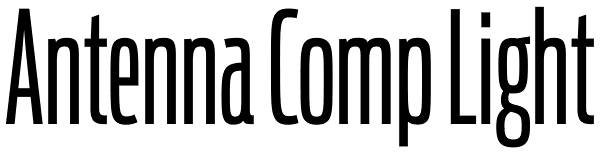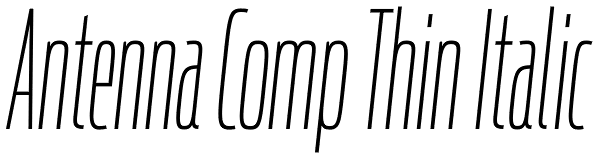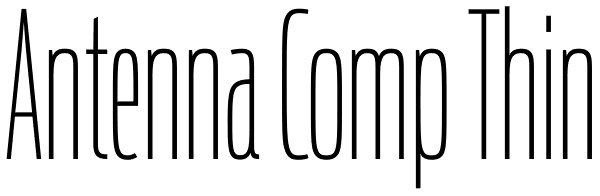
Antenna
The calm and deliberation of Antenna offers further development to the excitement and mobility that we have come to expect from the hand of Cyrus Highsmith. Beyond the tension of his normal line, Highsmith places a new emphasis on the repeat and...